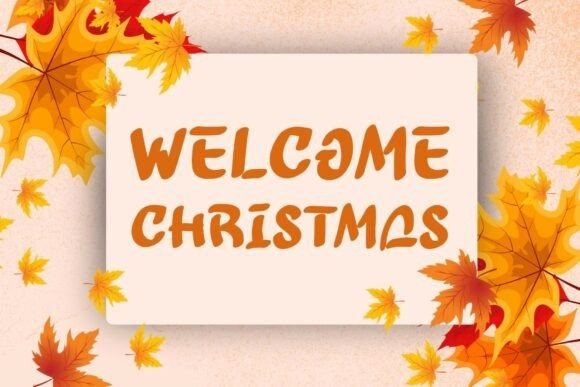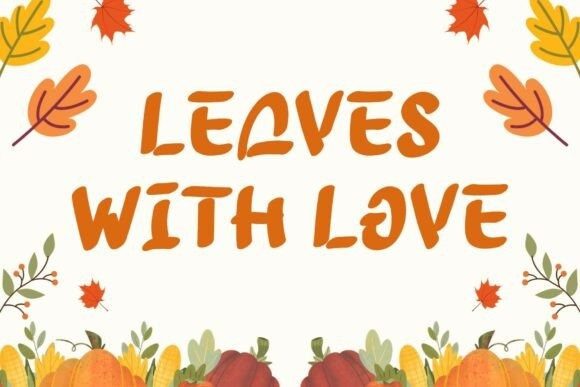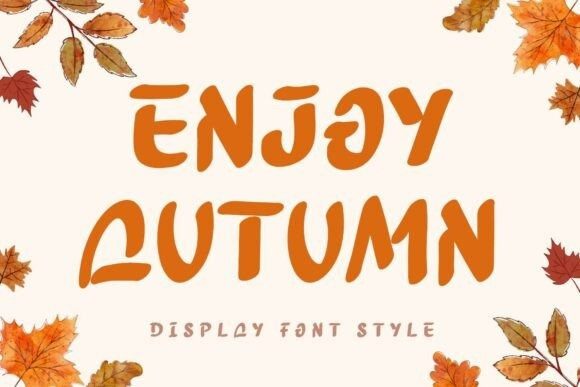
Enjoy Autumn Font
Enjoy Autumn Font, a playful and bold display font inspired by falling leaves and crisp autumn air.Its quirky, rounded letterforms and whimsical style make it perfect for seasonal projects, posters, invitations, and branding that needs a warm, rustic touch. Whether you’re designing for Thanksgiving, a fall festival, or cozy apparel, this font brings the heart of autumn to life.